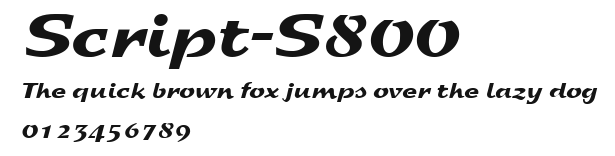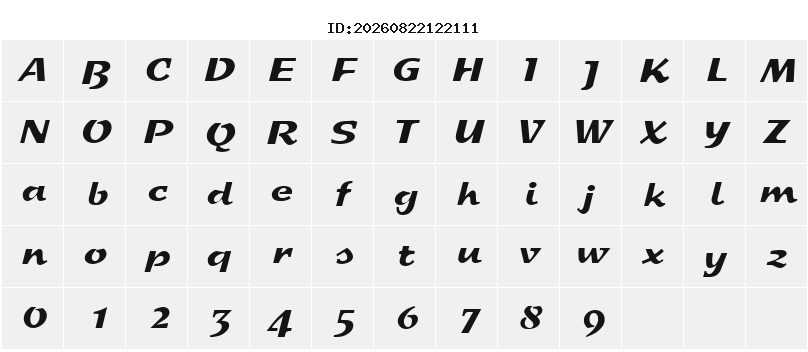
Script-S800 Preview
• Font Name: Script-S800
• Full Font Name: Script-S800-Regular
• PostScript Name: Script-S800-Regular
About Script-S800.ttf
Script-S800.ttf is a modern, elegant sans-serif font designed for ultimate readability and visual harmony. Perfect for branding, headlines, web design, and print materials.